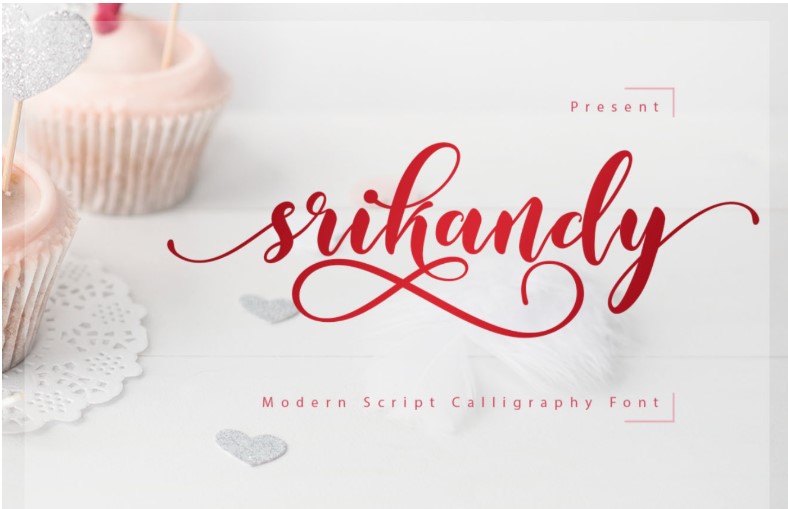
Srikandy Script Font
Srikandy Script Font falls beneath the category of the handwritten fonts. This font is present within the Microsoft word and its miles similar to the rouge script font. It permits the house domestic windows cleartype text rendering system, which wants to enhance text clarity on liquid crystal show indicates. I count on you’re a developer or font style fashion style designer, consequently, you come to our internet net web page for getting that typeface.
Which you can format suitable classified ads, tags, chapters folders, labellings, watermarks through video enhancing.